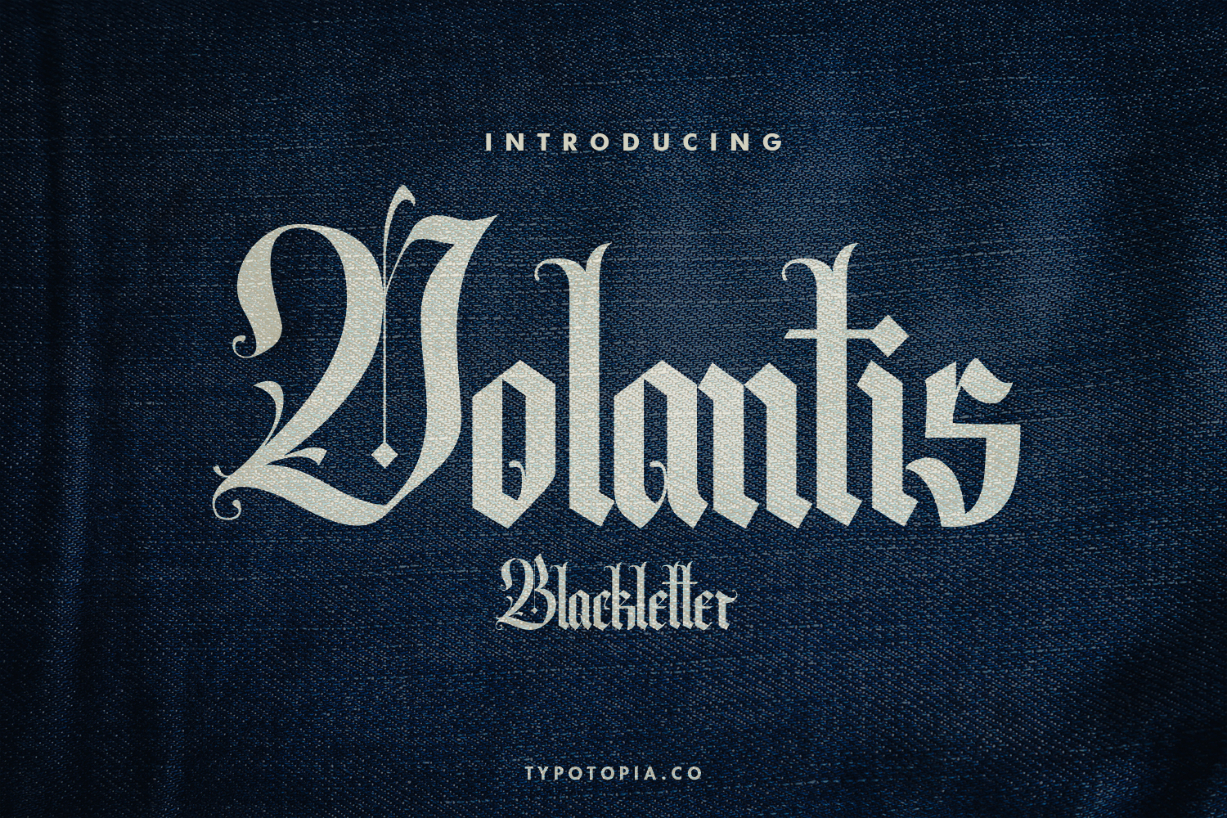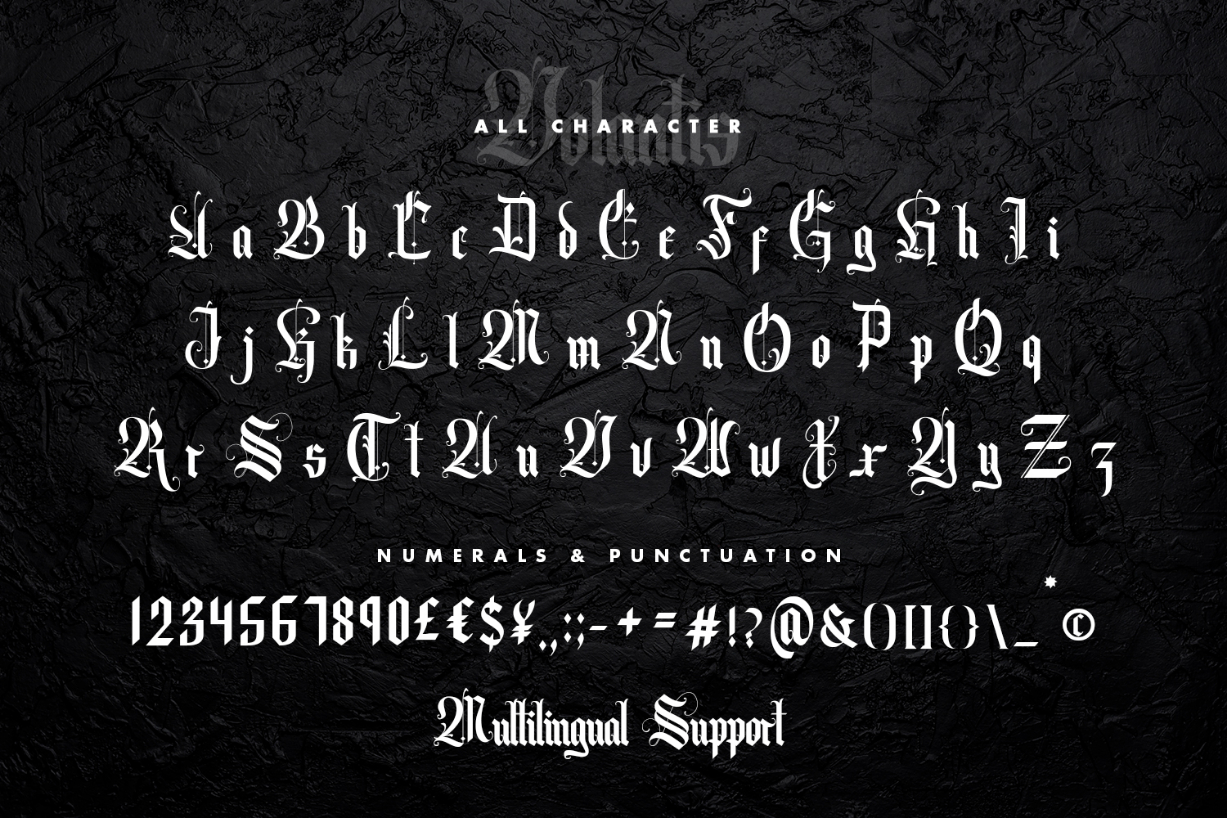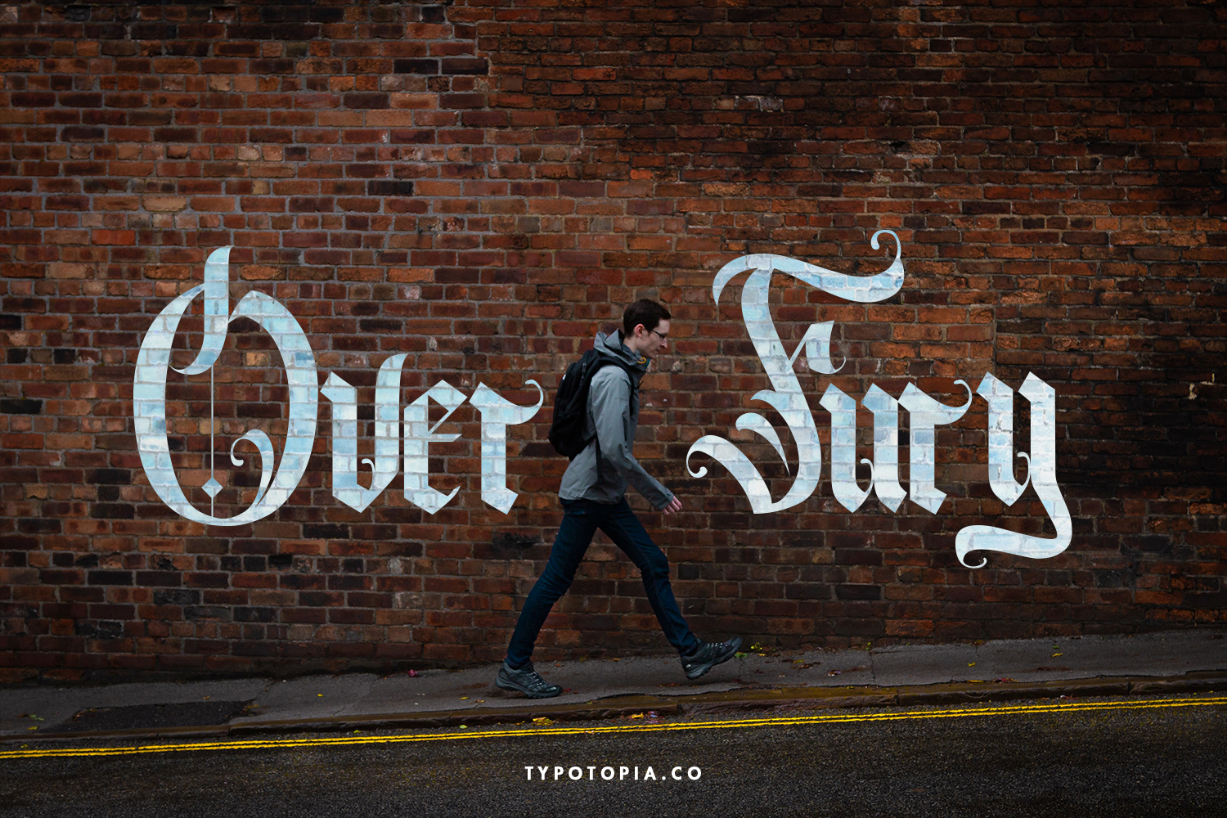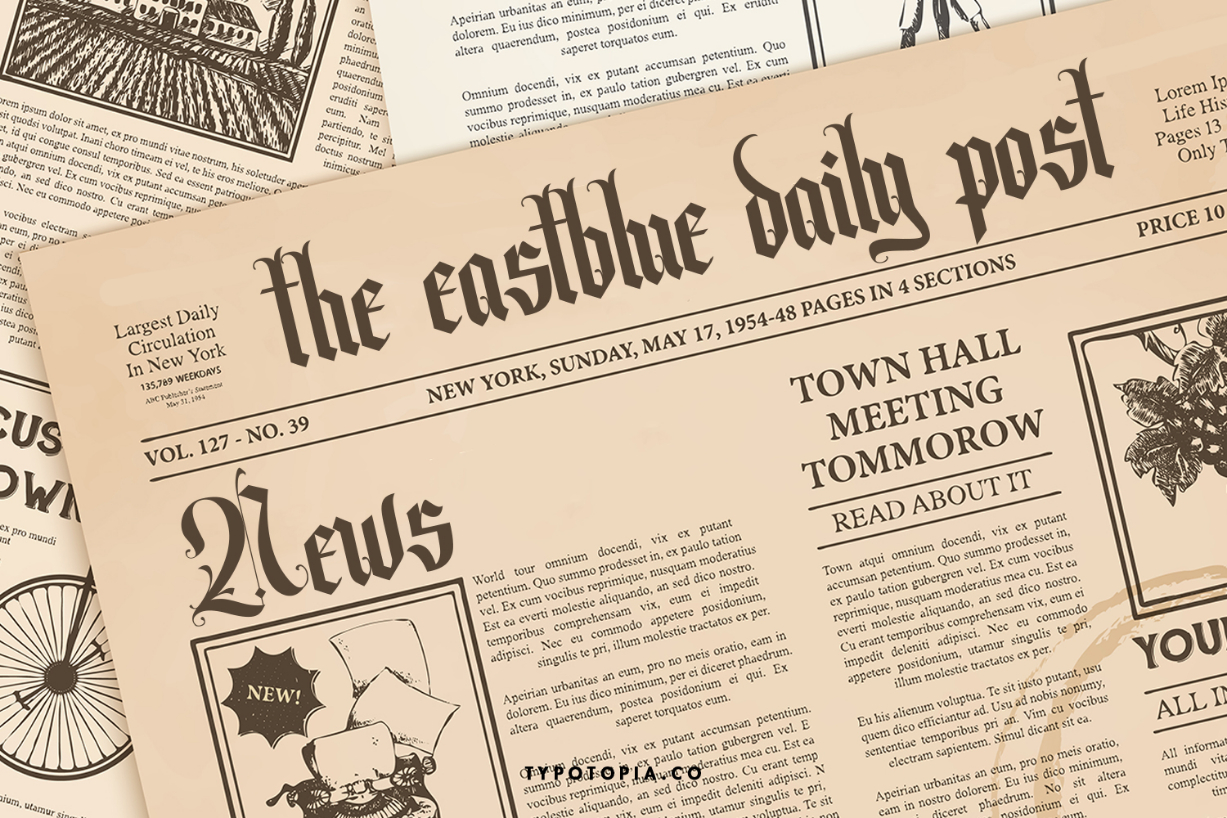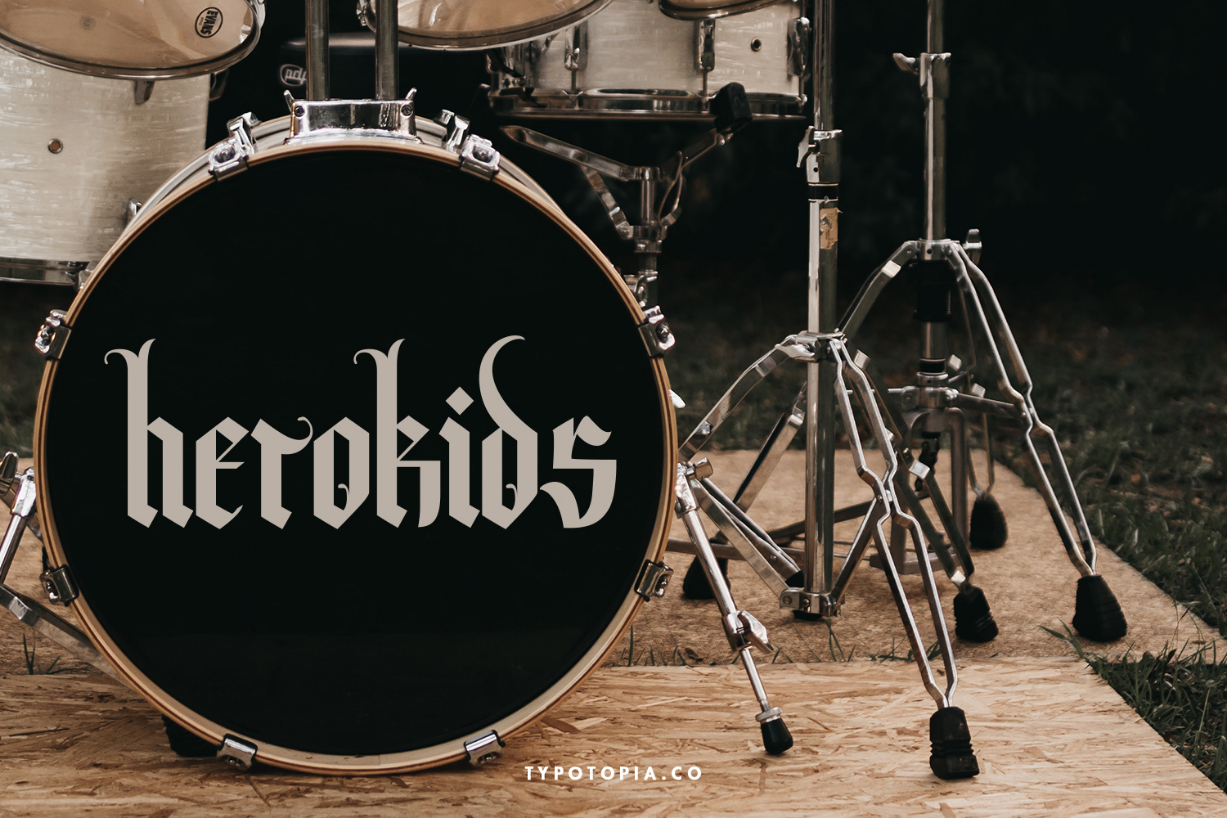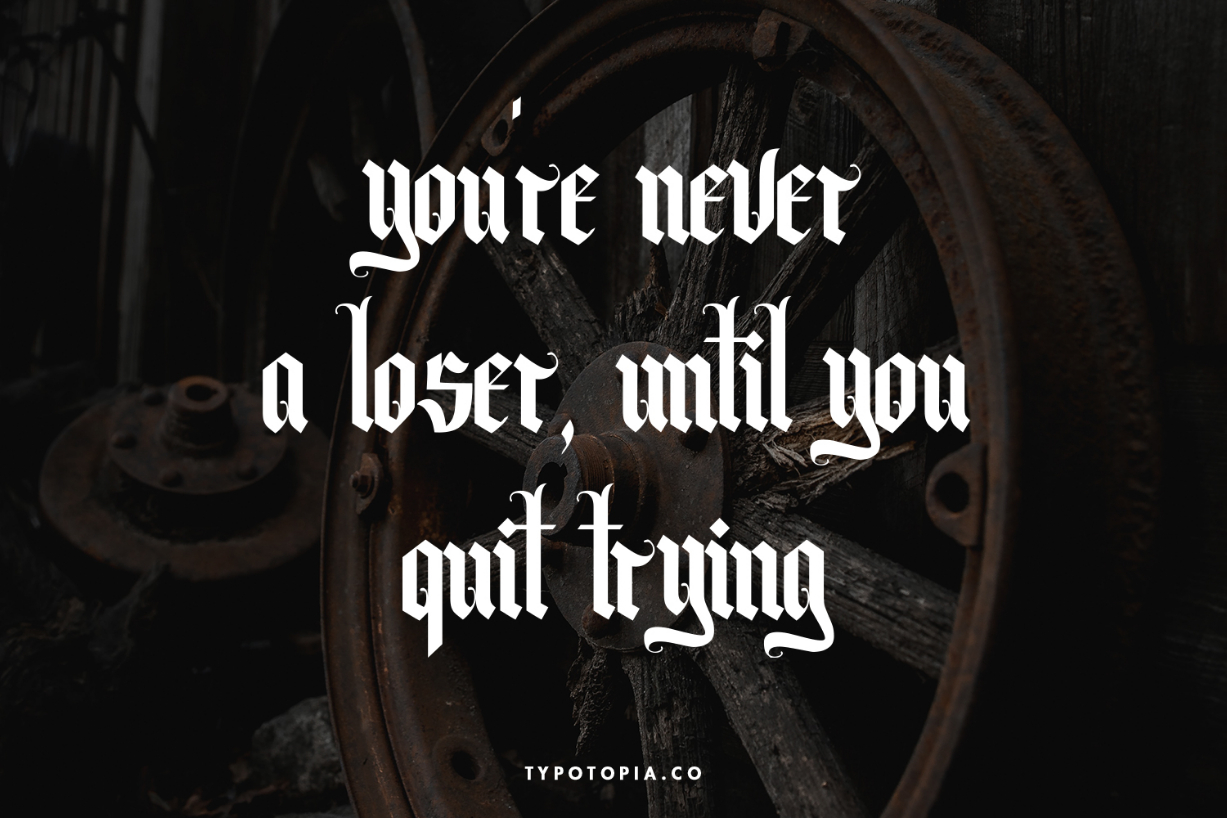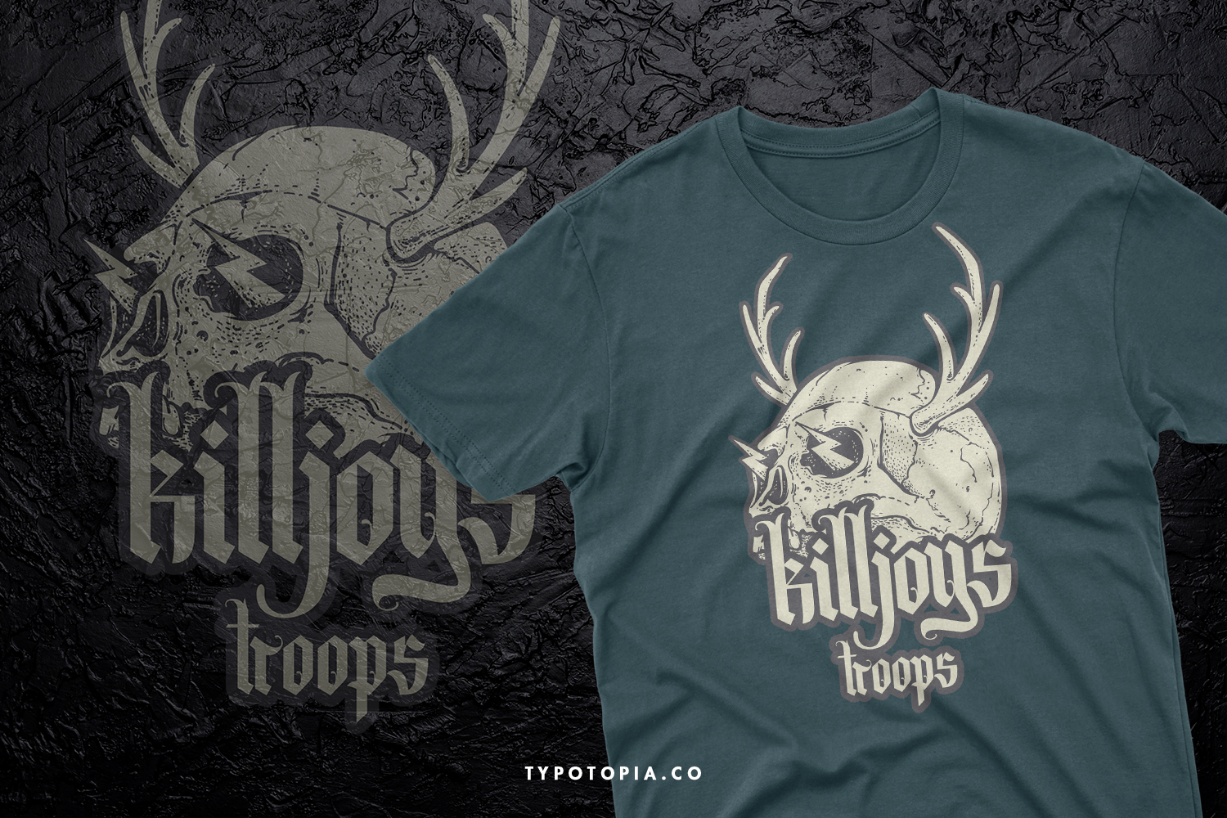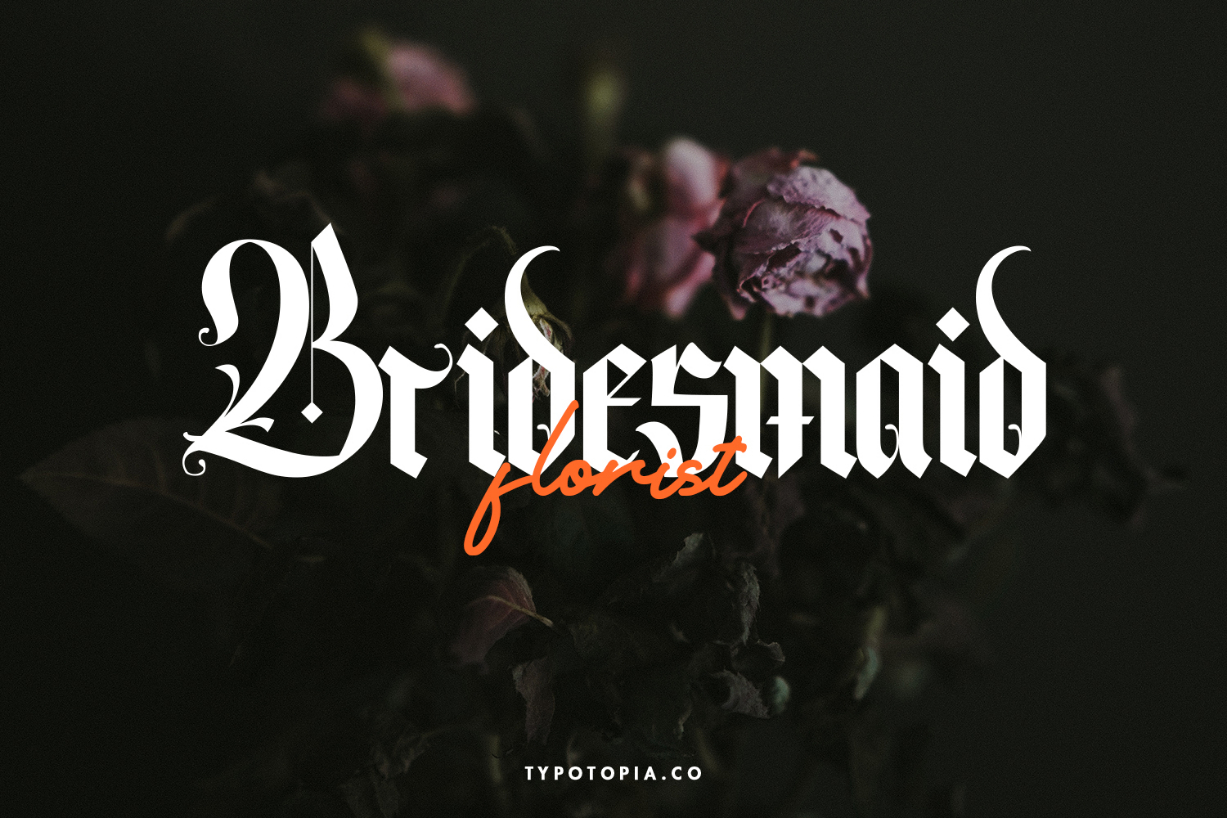
Volantis Font
About Volantis Font
Volantis is an incredibly distinct blackletter font. Add this font to your creative ideas and notice how it will make them stand out!